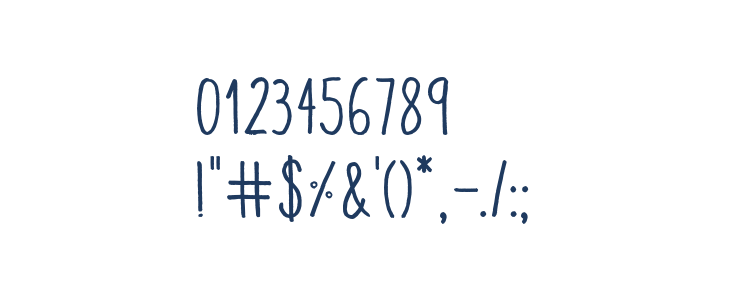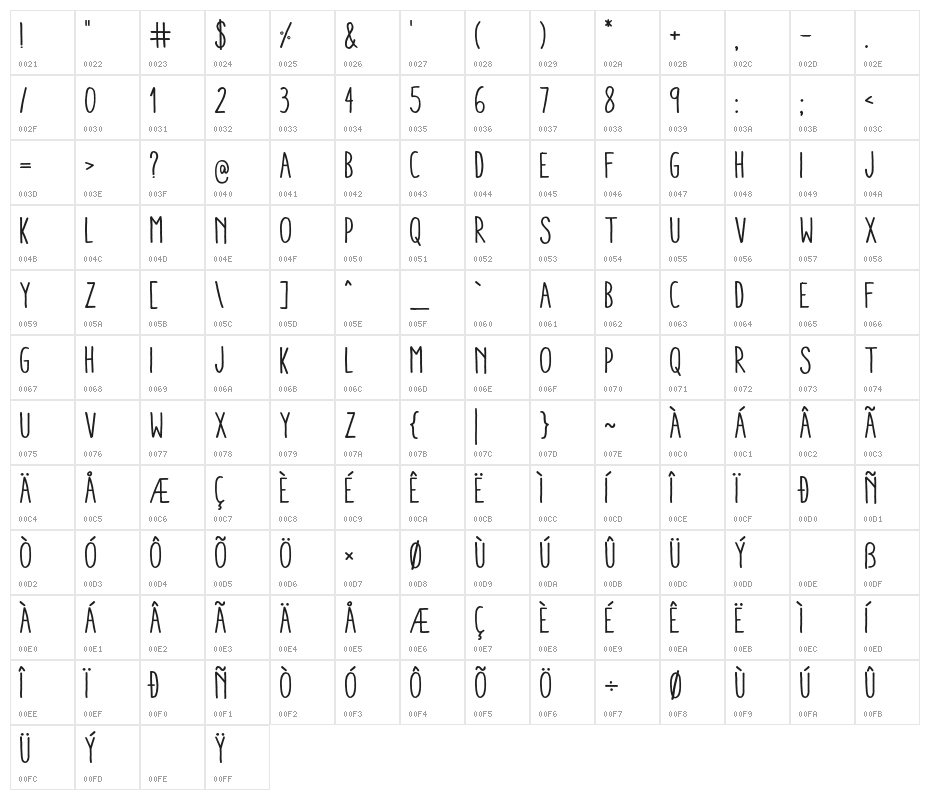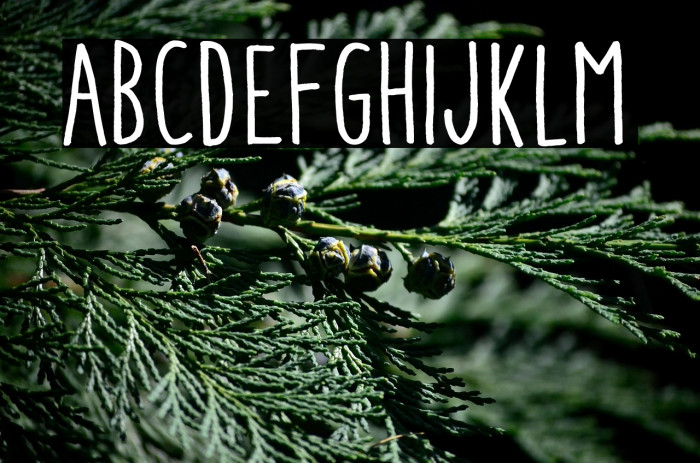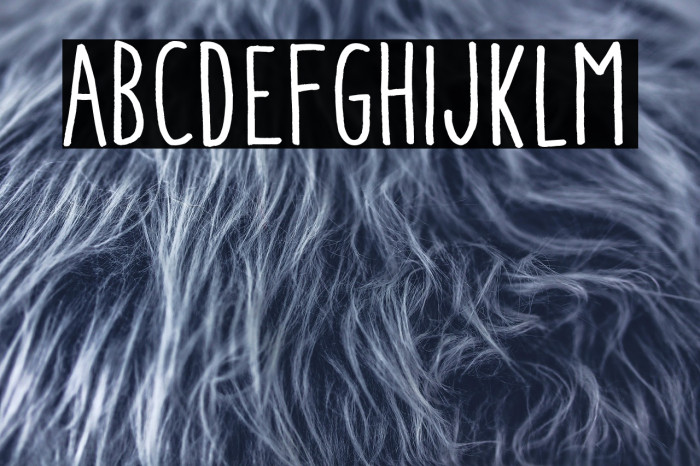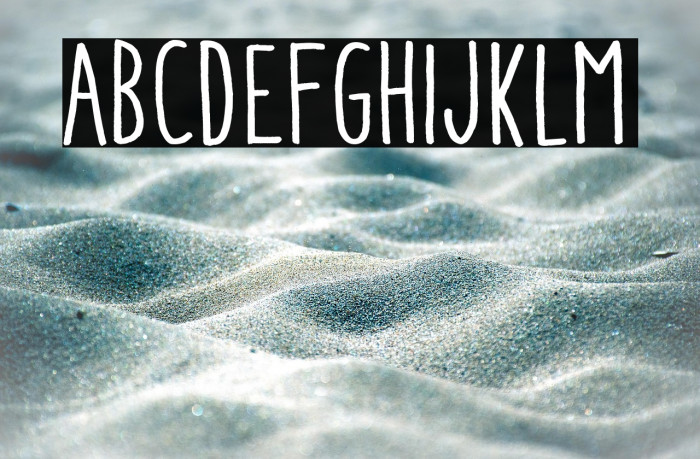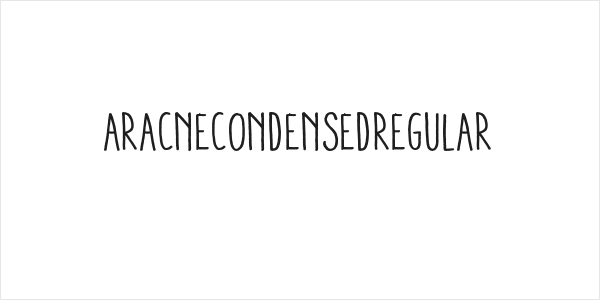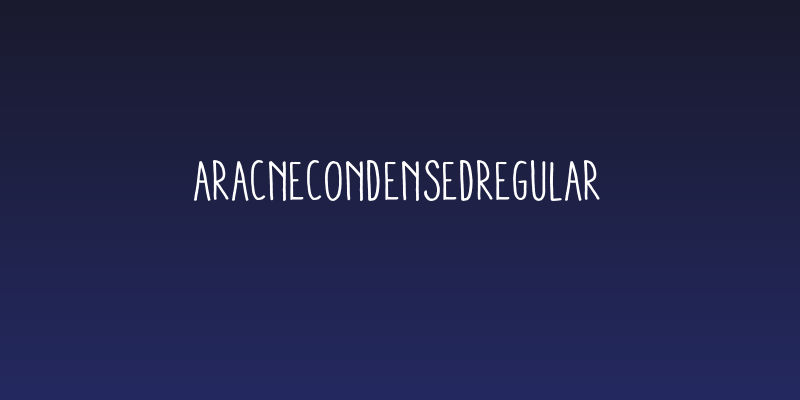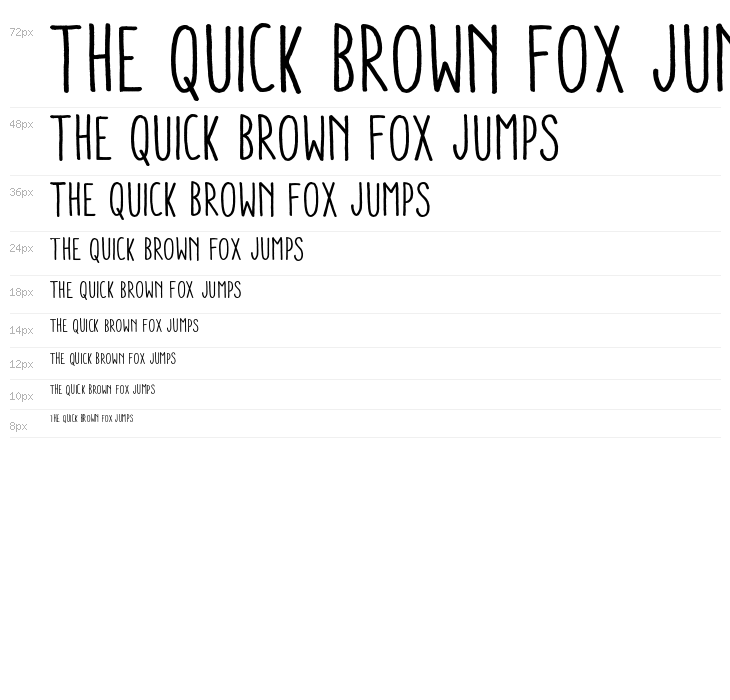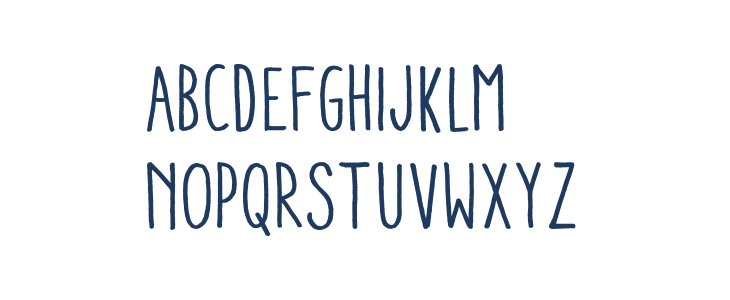
AracneCondensedRegular Font
AracneCondensedRegular Description
This font features a condensed and hand-drawn style, characterized by its tall, narrow letters with a slightly irregular and organic appearance. The strokes are consistent in width, giving it a uniform look, while the slight variations in line quality add a touch of personality and charm. The uppercase and lowercase letters maintain a cohesive style, with rounded edges and a playful yet sophisticated feel. The numerals and special characters follow the same design principles, ensuring a harmonious overall appearance. This font is suitable for projects that require a casual yet refined aesthetic, offering a unique blend of readability and artistic flair.